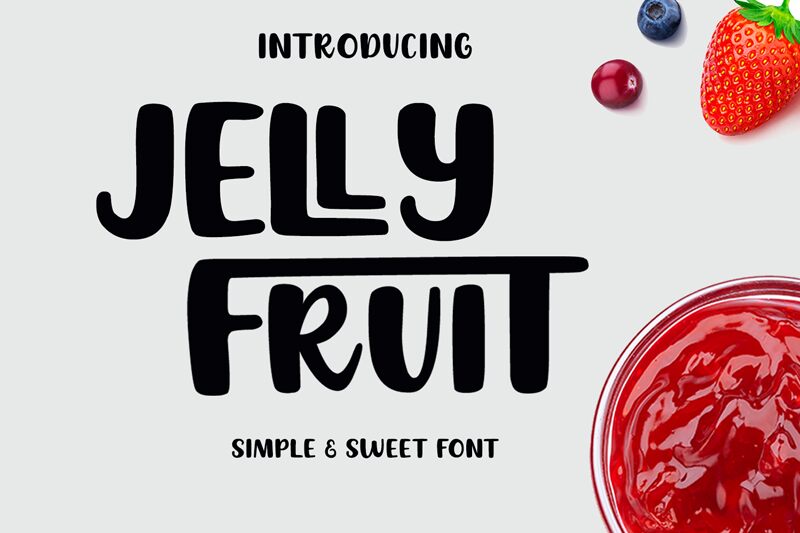
Jelly Fruit font family by girinesia.std is a cartoon-inspired typeface with 2 font styles. Each letter of the set is slightly rounded and bubbly making the font friendly, casual, and modern. Opposite to complex and professional fonts, Jelly Fruit captures a touch of fun that is simple yet impactful. Organic shaky lines contribute to an inviting effect that instantly connects with the font’s audience.
This free font is suitable for online and printed card games, board games, children’s books, menus, packaging, branding, video clips, website design, and app development. With the right graphic vision, it also blends into logos and visual identity.